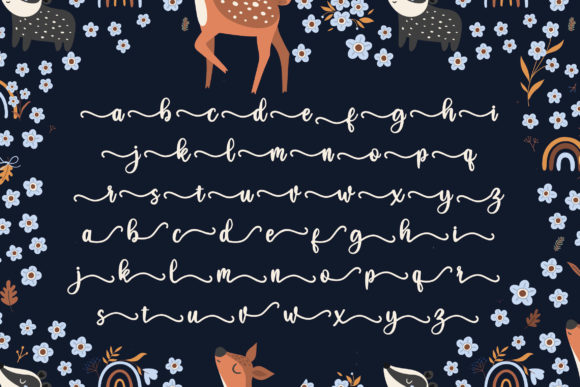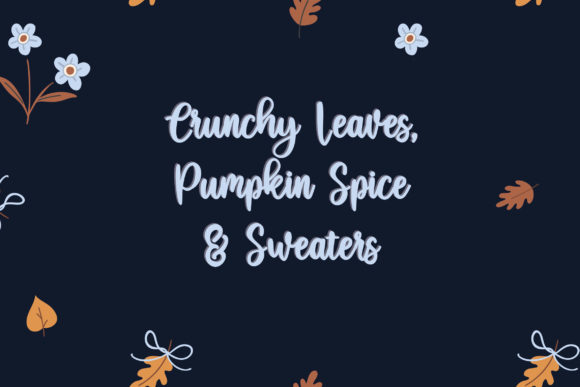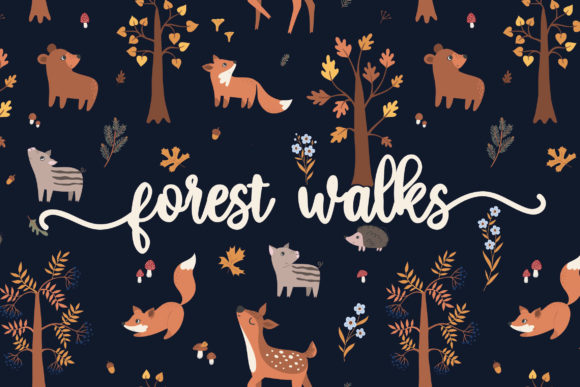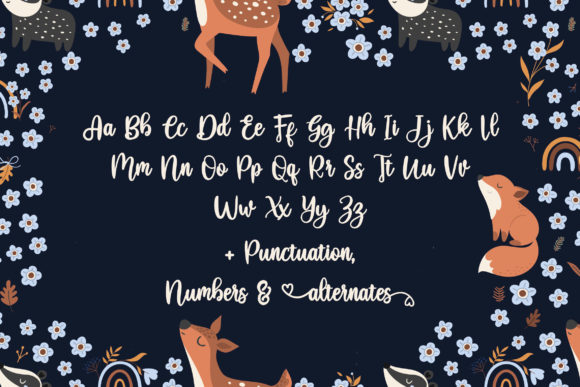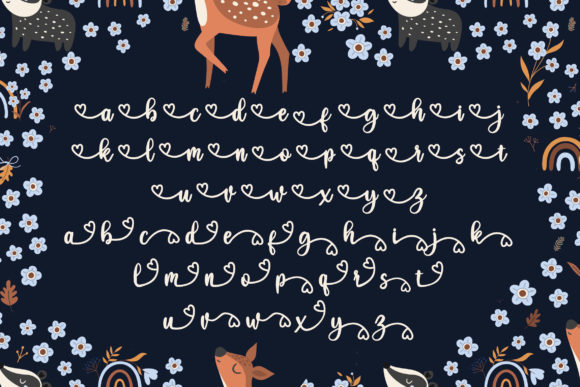
Introducing Autumnal Friends Font: The Perfect Handwritten Touch for Your Designs
As the seasons change and autumn leaves start to fall, we’re reminded of the cozy warmth and charm that comes with this time of year. For designers and crafters, autumn is a season of inspiration, with its rich colors, textures, and themes. If you’re looking for a font that captures the essence of autumn, look no further than Autumnal Friends Font. This beautiful, handwritten font is perfect for adding a touch of elegance and whimsy to your designs.
What Makes Autumnal Friends Font So Special?
Autumnal Friends Font is a true gem, with a unique blend of charm and sophistication. Its handwritten curves and flowing lines evoke a sense of warmth and personality, making it perfect for a wide range of design applications. Whether you’re creating wedding invitations, thank you cards, quotes, greeting cards, logos, business cards, or any other design that needs a personal touch, Autumnal Friends Font is the perfect choice.
Elegant and Charming: The Perfect Combination
Autumnal Friends Font feels equally charming and elegant, making it a versatile font that can be used in a variety of contexts. Its elegant lines and refined curves give it a sophisticated feel, while its playful and whimsical touches keep it feeling fresh and approachable. Whether you’re designing for a formal event or a more casual project, Autumnal Friends Font is sure to impress.
Perfect for Wedding and Party Designs
Wedding invitations, save-the-dates, and thank you cards are just a few examples of where Autumnal Friends Font shines. Its romantic and whimsical feel makes it perfect for couples looking for a font that will add a touch of personality to their wedding stationery. But it’s not just limited to weddings – Autumnal Friends Font is also great for baby showers, birthday parties, and other celebrations.
Add a Personal Touch to Your Designs
Autumnal Friends Font is all about adding a personal touch to your designs. Its handwritten feel makes it perfect for quotes, greeting cards, and other projects where you want to add a bit of personality. Whether you’re a designer, crafter, or DIY enthusiast, Autumnal Friends Font is a great way to add a human touch to your work.
Why Choose Autumnal Friends Font?
- Unique and eye-catching: Autumnal Friends Font is a one-of-a-kind font that will make your designs stand out from the crowd.
- Versatile: Use it for weddings, parties, business projects, or personal designs – Autumnal Friends Font is versatile and adaptable.
- Elegant and charming: This font combines elegance and whimsy, making it perfect for a wide range of design applications.
Get Creative with Autumnal Friends Font
In conclusion, Autumnal Friends Font is a beautiful, handwritten font that is perfect for designers and crafters looking to add a touch of autumn charm to their designs. With its elegant and charming feel, versatility, and ease of use, it’s a great choice for a wide range of design applications. So why wait? Download Autumnal Friends Font today and start creating your own stunning designs!